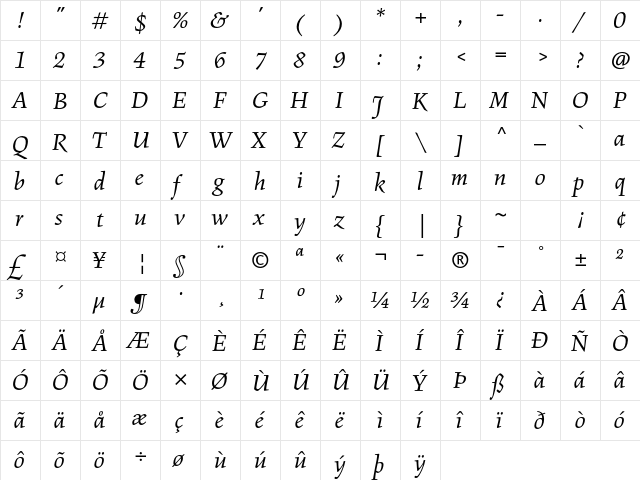
Figural Std Book Italic
| Designer | Michael Gills |
Design Context for Figural Std Typeface
Figural Std takes a measured approach to typography — its balanced proportions and neutral character make it a reliable workhorse for both digital and print work. The dynamic lean of this cut emphasises speed and emphasis in any layout.
Pro Tip: Use Figural Std for emphasis, pull quotes, and subheadings where its slanted energy can add rhythm to the layout.